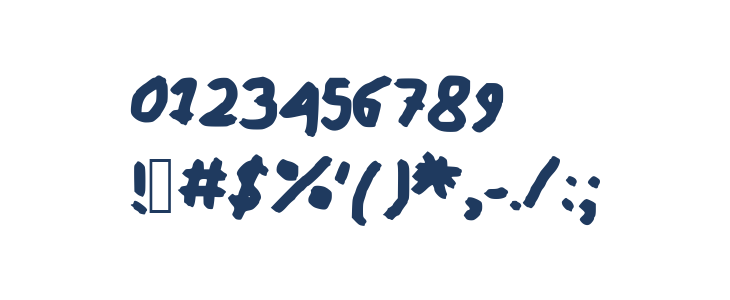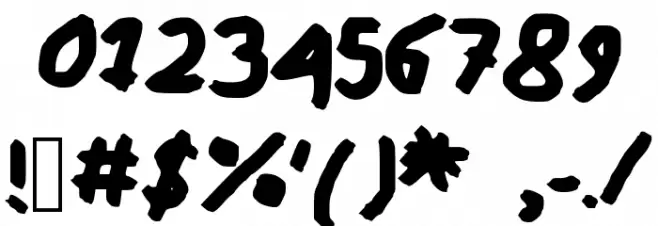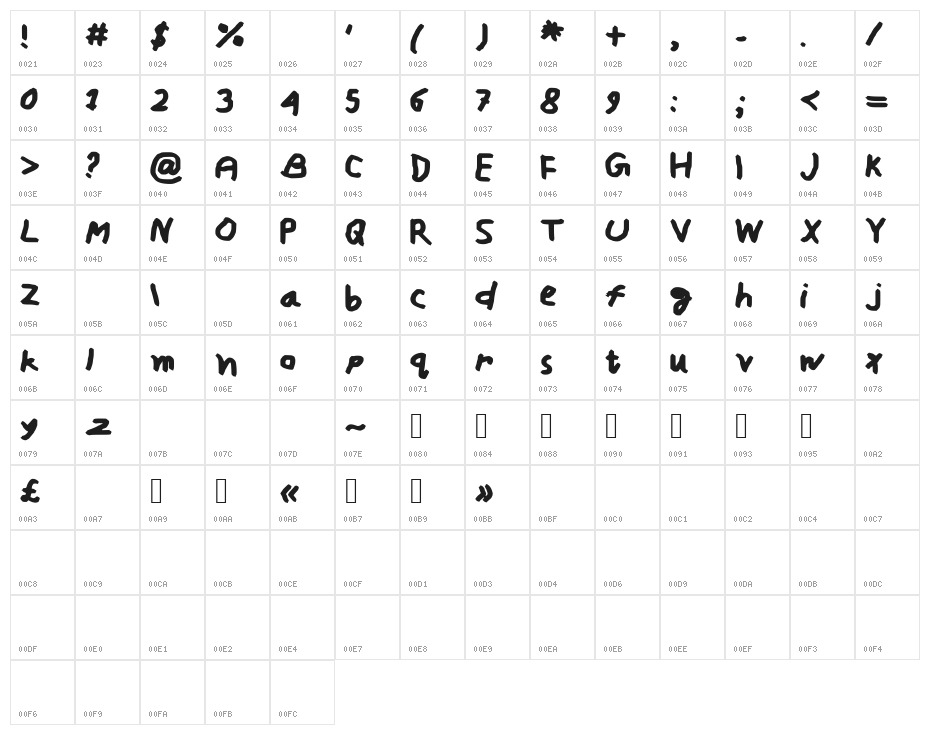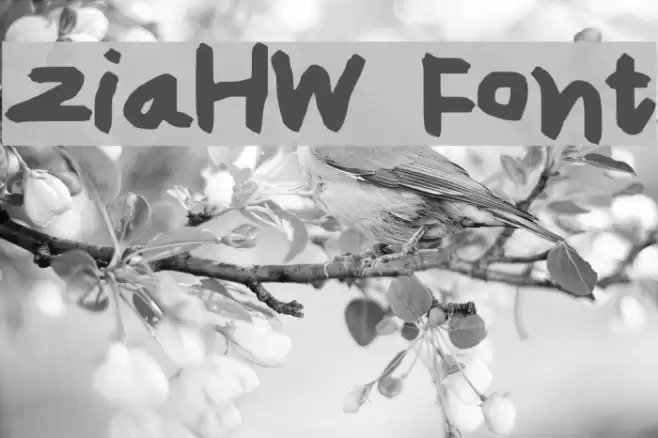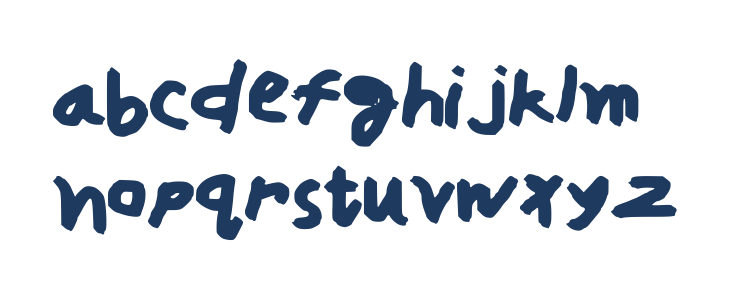
ziaHW Font
ziaHW Description
This font features a bold, handwritten style with a playful and energetic appearance. The letters are slightly irregular, giving it a casual and informal feel. The strokes are thick and consistent, which adds to its boldness and makes it highly legible even at smaller sizes. The uppercase and lowercase letters maintain a cohesive look, while the numbers and special characters are designed to match the overall style, ensuring versatility across various uses. Its dynamic and lively character makes it suitable for creative projects that require a personal touch.
| Proposed Projects | Ideal for greeting cards, posters, children's books, and creative branding projects. |